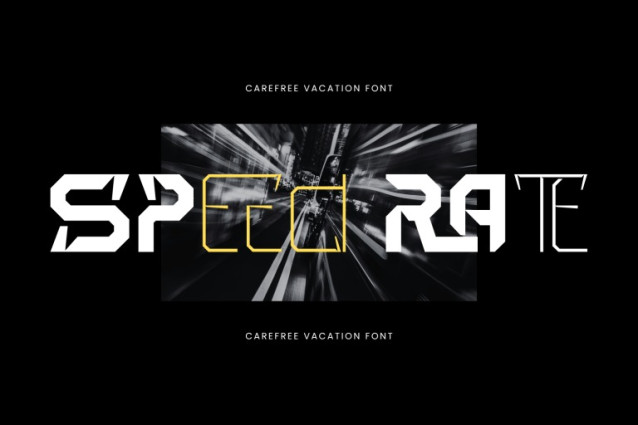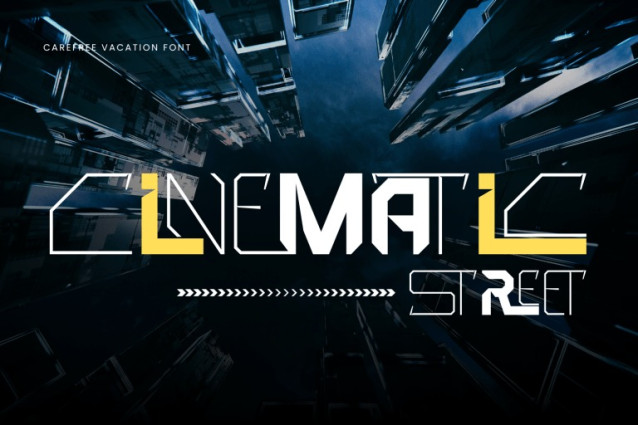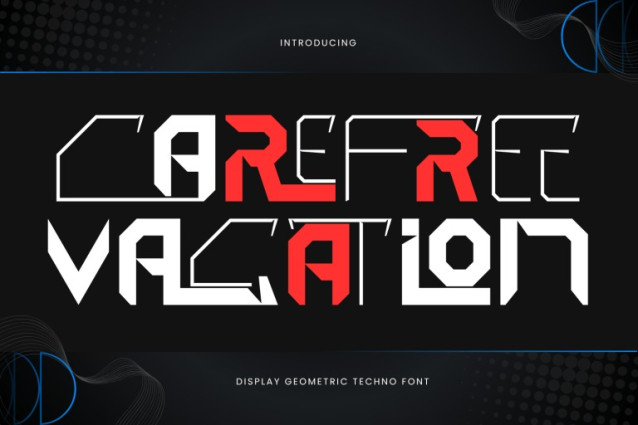
Carefree Vacation Font
Carefree Vacation – Futuristic Font is a futuristic techno display font inspired by cybernetic architecture, digital interfaces, and next-generation technology. Built with angular geometric forms, modular structures, and precision-cut details, this typeface delivers a bold sci-fi personality with a distinctly modern edge. Its sharp letterforms combine industrial strength with futuristic aesthetics, creating a powerful visual language that feels both innovative and dynamic. The unique mix of solid geometric characters and technical outline elements gives Carefree Vacation a highly recognizable identity that stands out in contemporary design.
Uppercase & Lowercase Letters
Around 100 Special Ligatures & Alternates
Accented Characters for multilingual support
🔤About 100 ligatures combined with Stylistic Alternates Font: